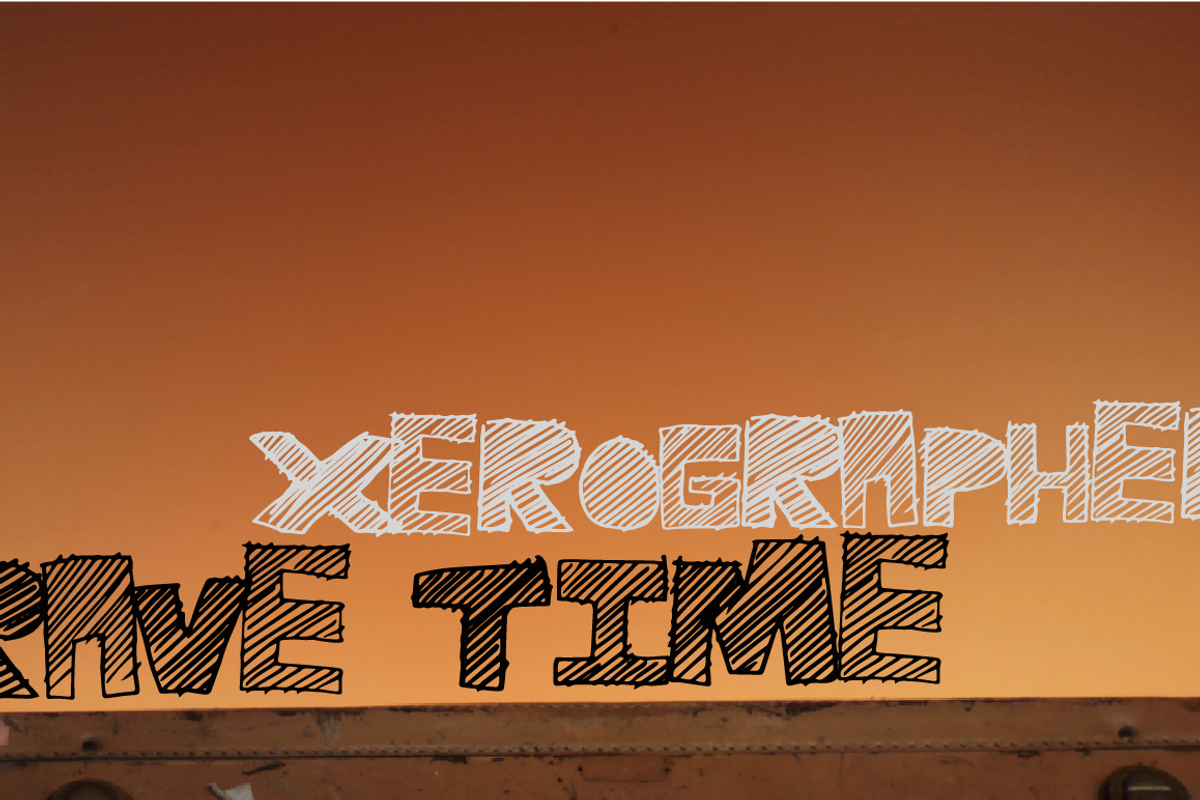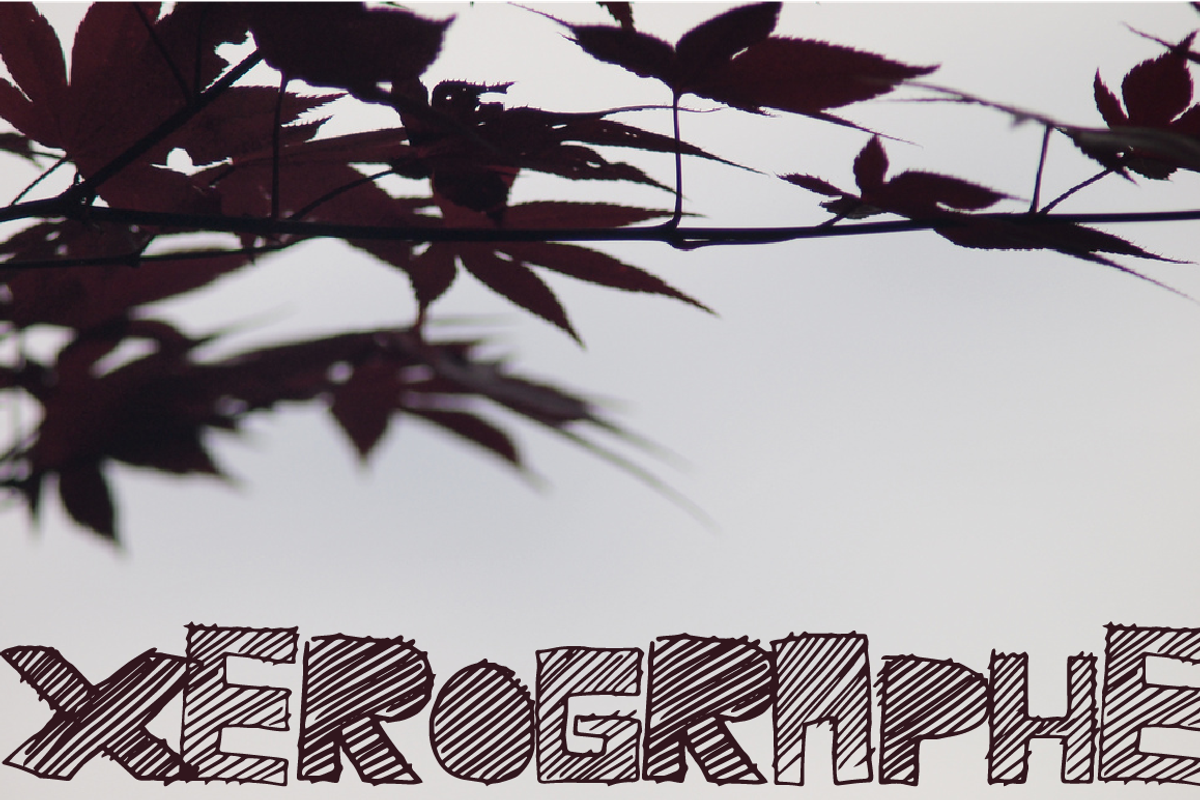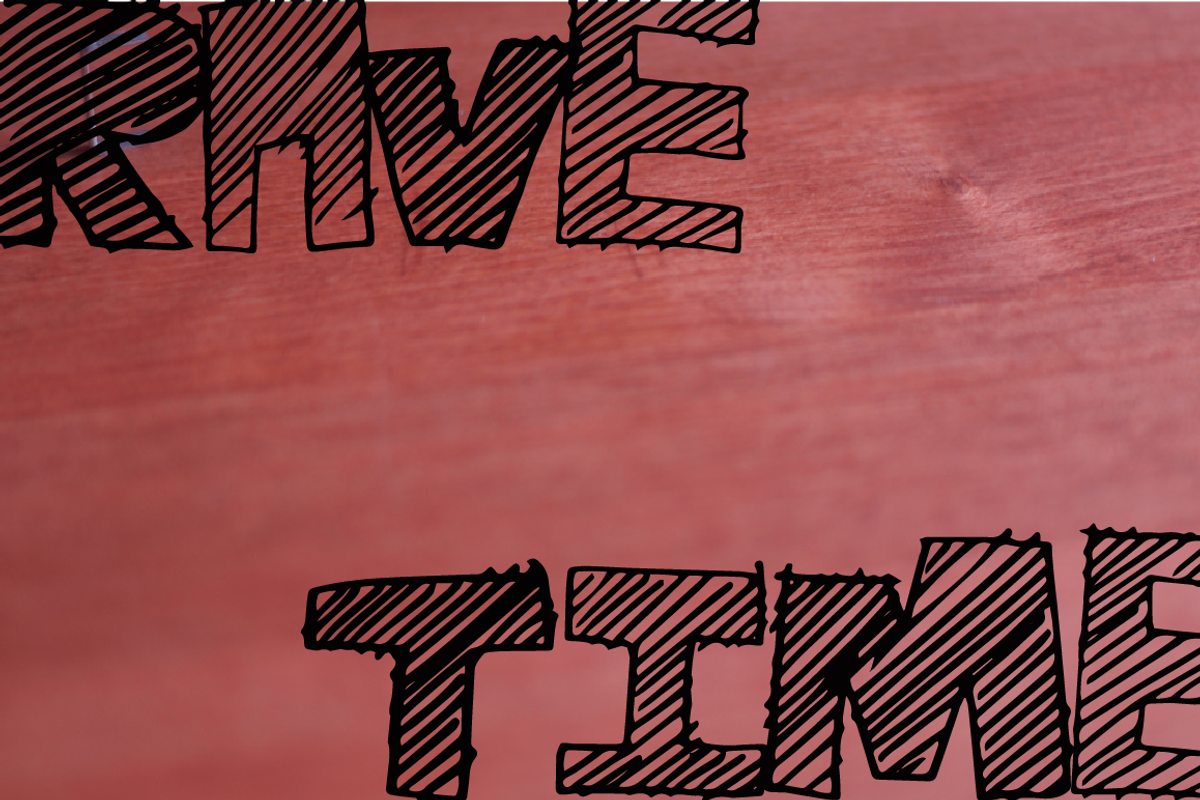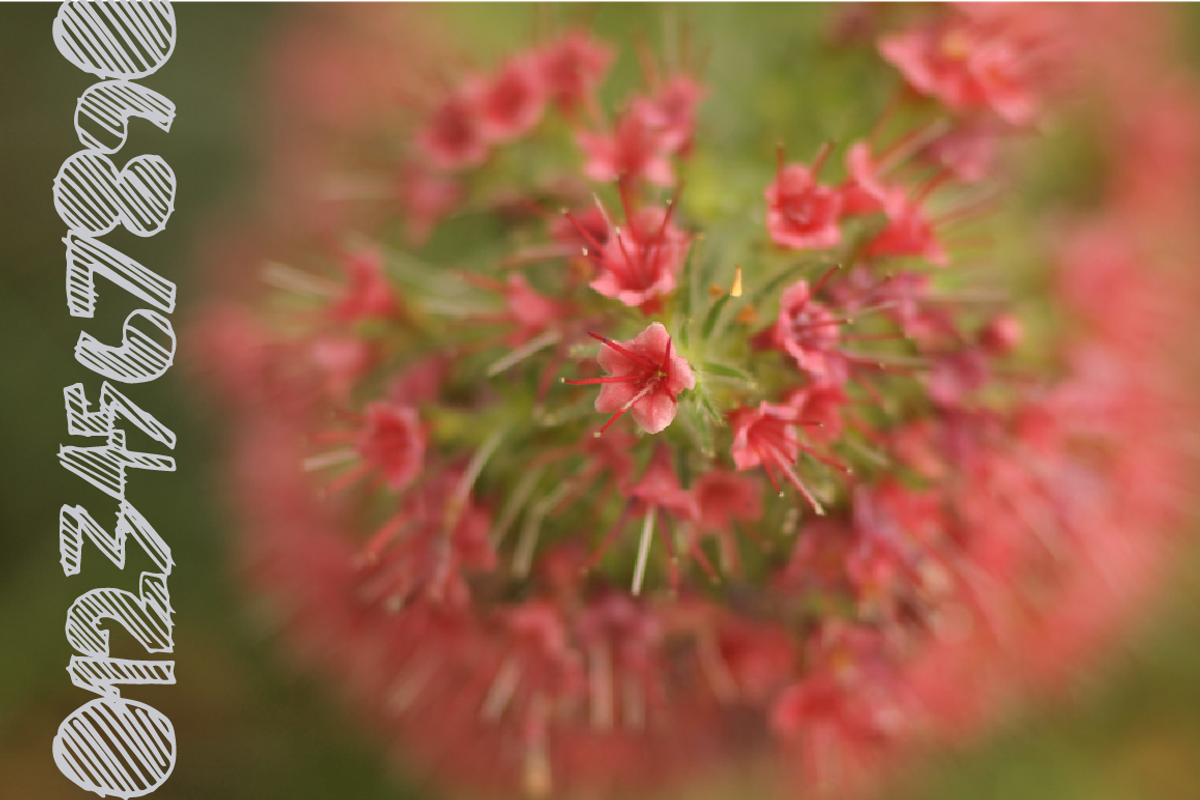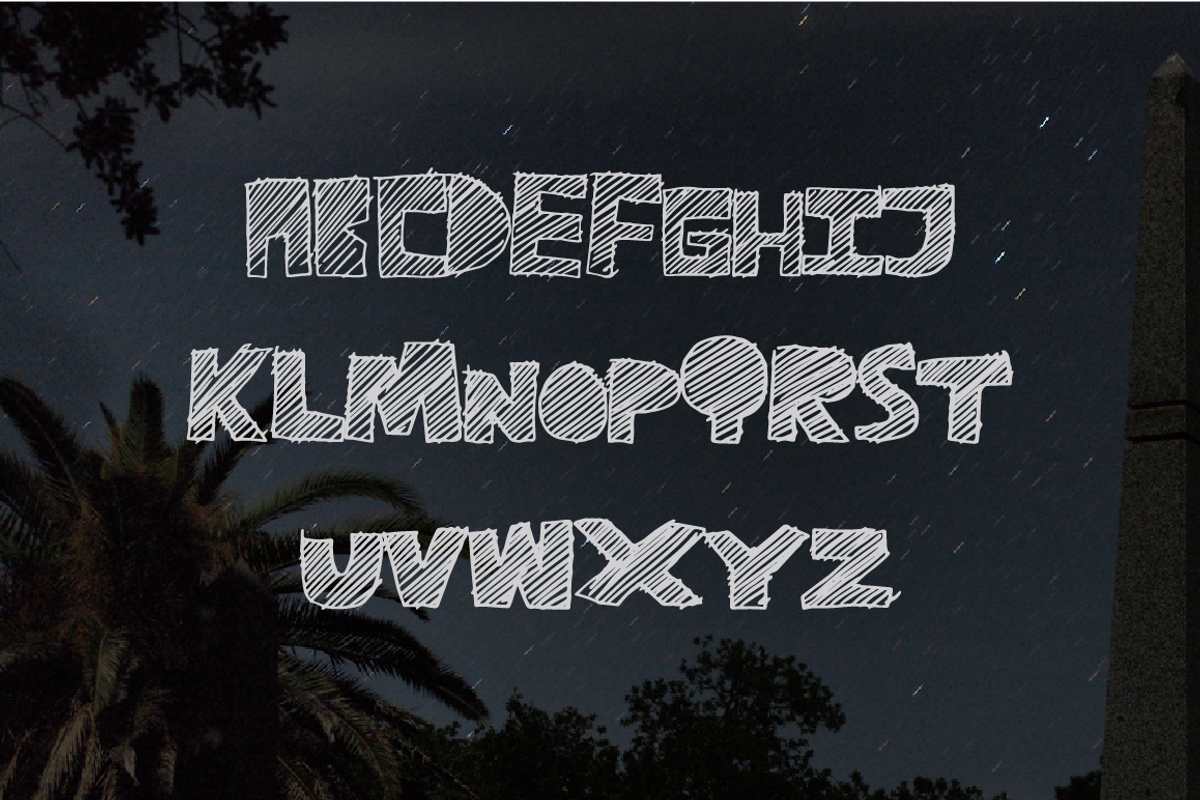
RaveTime
RaveTime by xero fonts is a font selected for branding, posters, packaging, typography.
Why RaveTime is worth a look
RaveTime by xero fonts fits naturally into Branding, posters, packaging, typography.